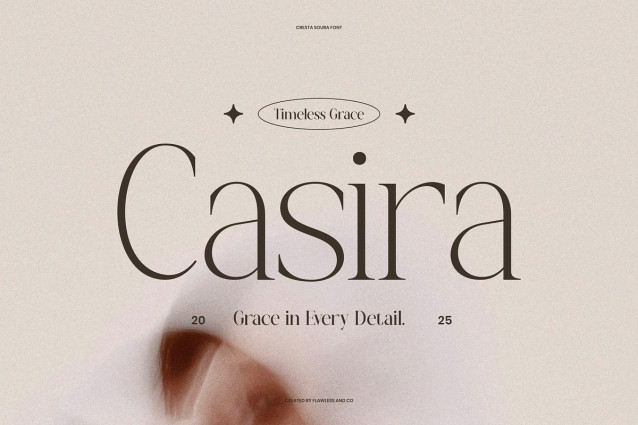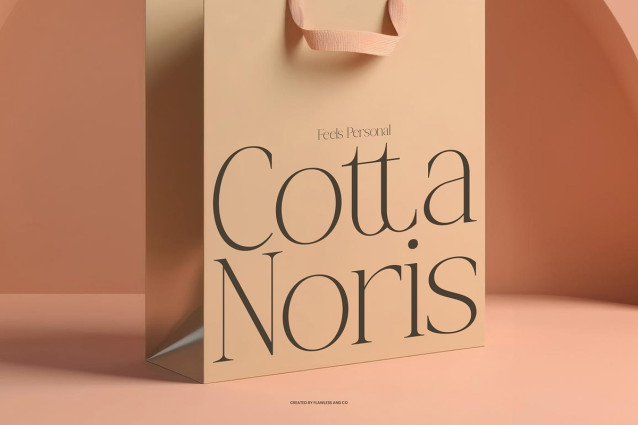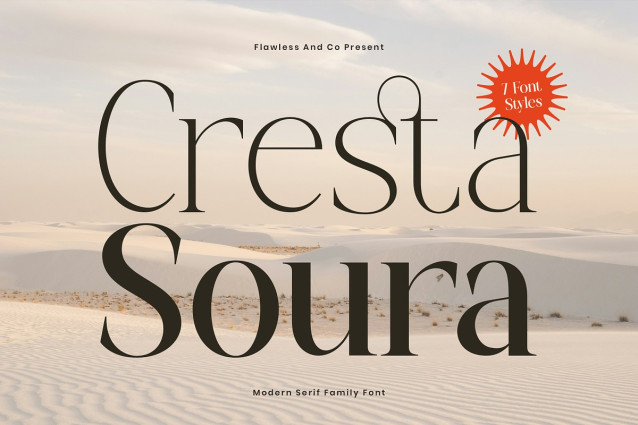
Cresta Soura Font
Cresta Soura Font is a modern serif family font designed with refined elegance and confident character. Featuring smooth curves, sharp contrasts, and graceful letterforms, Cresta Soura delivers a sophisticated look that feels contemporary yet timeless. Its carefully crafted shapes make it versatile for both bold headlines and elegant body text.